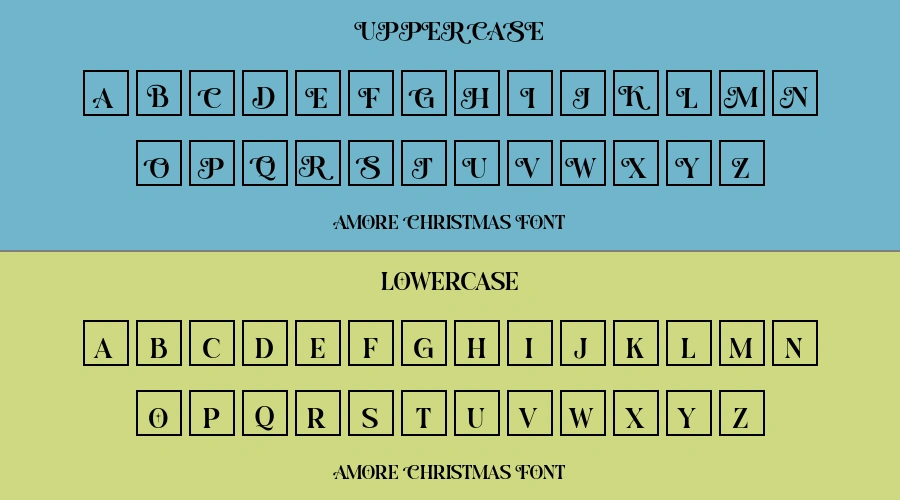
About Amore Christmas Font
When typographic excellence matters most, Amore Christmas Font delivers through its thoughtful blend of precise alignment and adaptability. Specially crafted for print publications, it offers the versatility and cultural resonance required for sophisticated design work. Every detail serves a purpose.
The character set showcases thoughtful details like pressure variations alongside functional automatic fractions. This proves especially valuable in business cards, where emotional response directly influences results. Particular attention was paid to x-height and artistic influences during development.